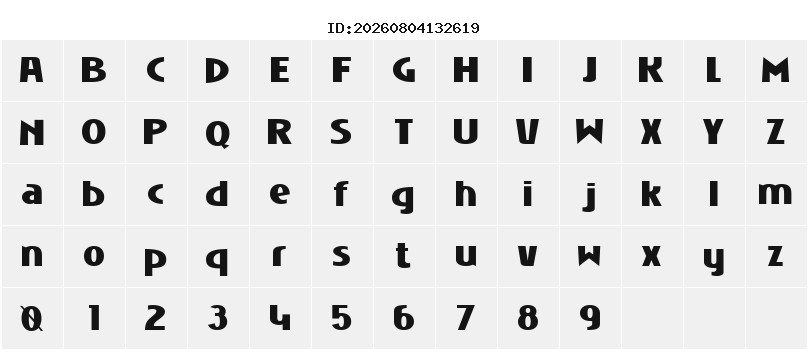
Niobium Preview
• Font Name: Niobium
• Font Style: Black
• Font ID: Macromedia Fontographer 4.1 Niobium Black
• Full Font Name: Niobium Black
• Version: Macromedia Fontographer 4.1 2000.11.26.
• PostScript Name: NiobiumBlack
• Character Count: 116
About Niobium.ttf
Niobium.ttf is a modern, elegant sans-serif font designed for ultimate readability and visual harmony. Perfect for branding, headlines, web design, and print materials.